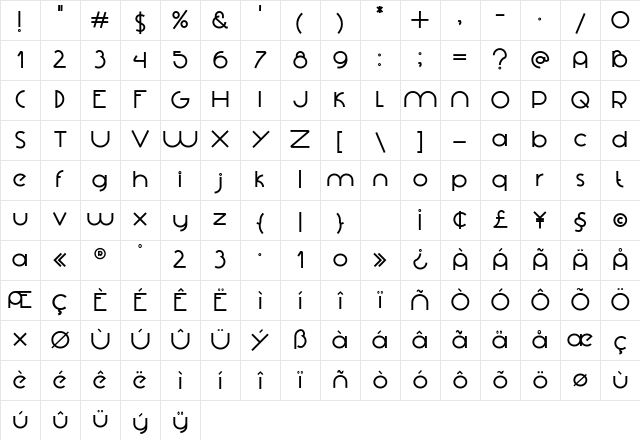
Loominaire Regular
Foundry: Ibra Creative Studio
Designer: Ibra Fonts
Design Context for Loominaire
Loominaire is a composed and adaptable typeface that performs quietly and consistently across a wide range of design contexts.